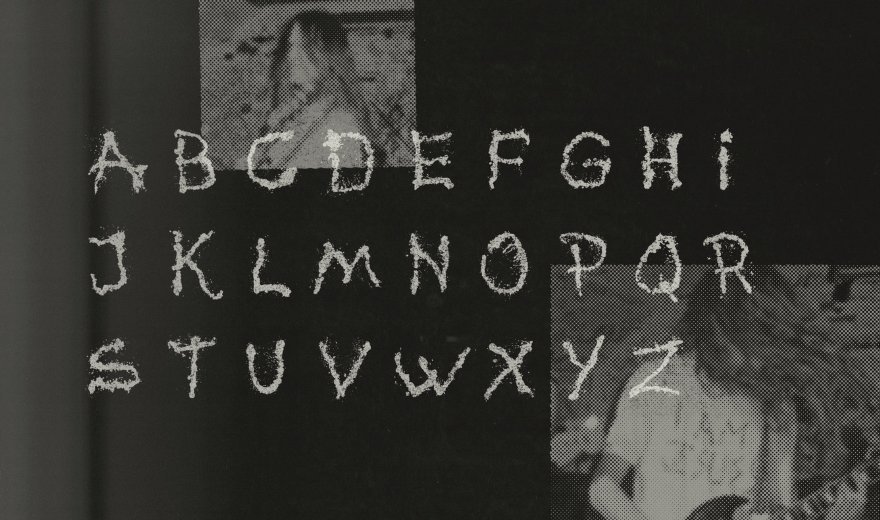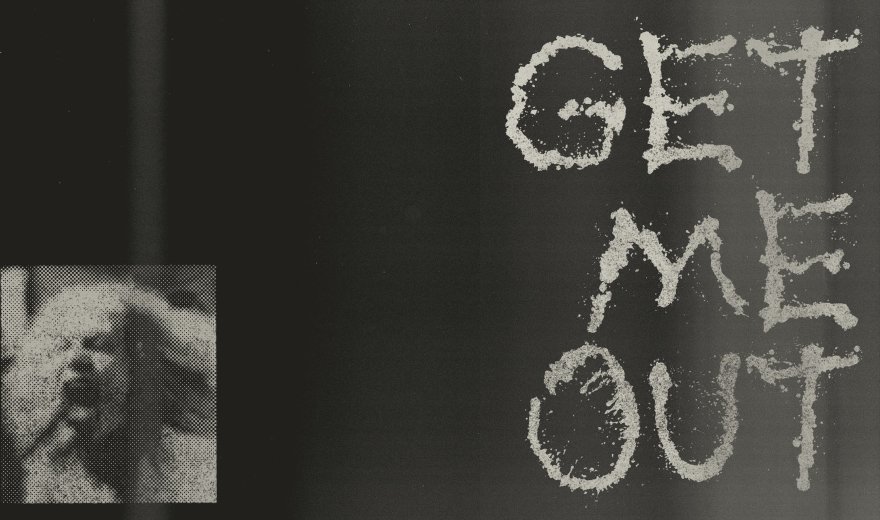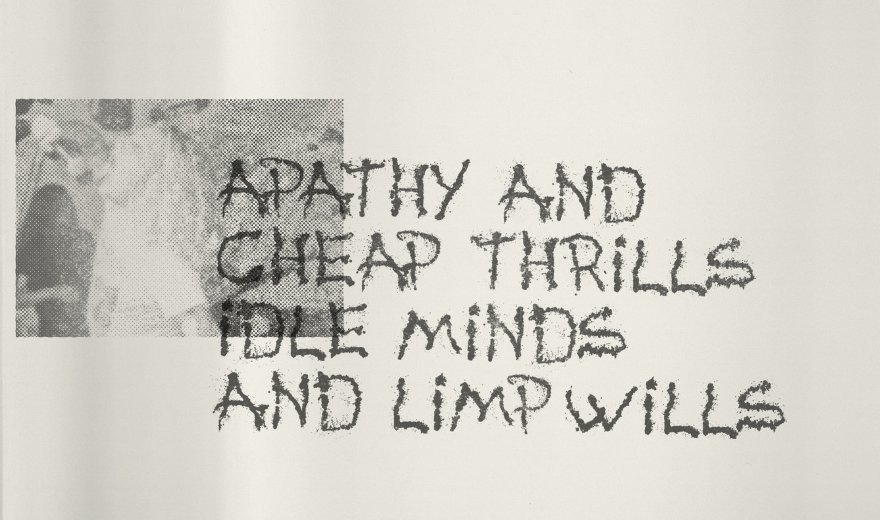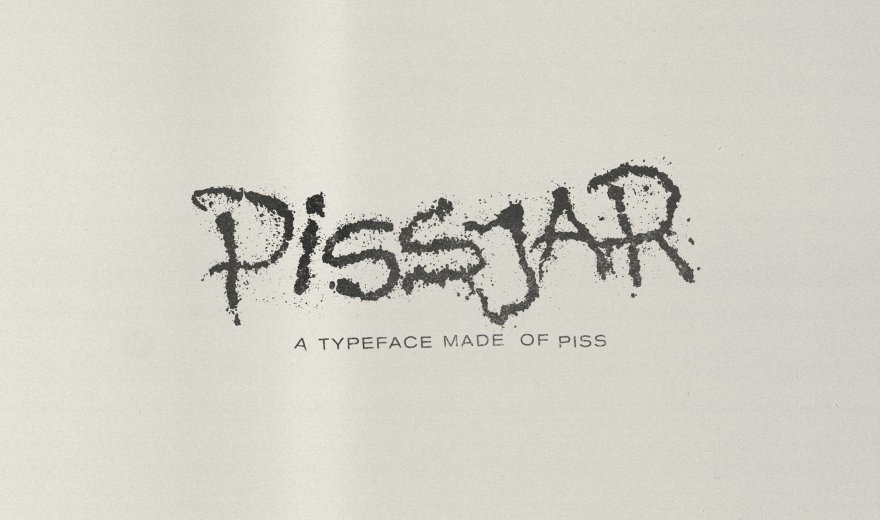
It must be the most original and extraordinary free typeface we've found so far. Pissjar Sans is a free typeface of... piss. Yeah, that's right. You can read the story behind this project on its website. So, download this free font and use it "in your wedding invitation, school report or as a company logo for your shitty startup."© Enjoy!